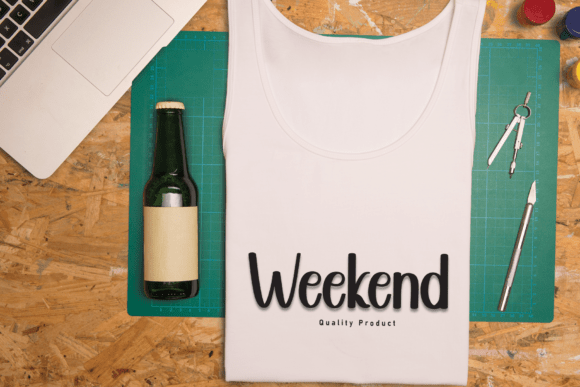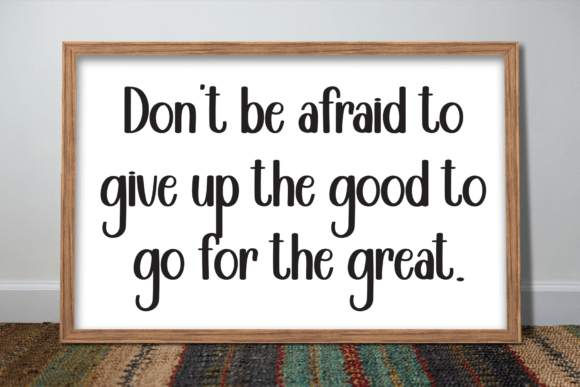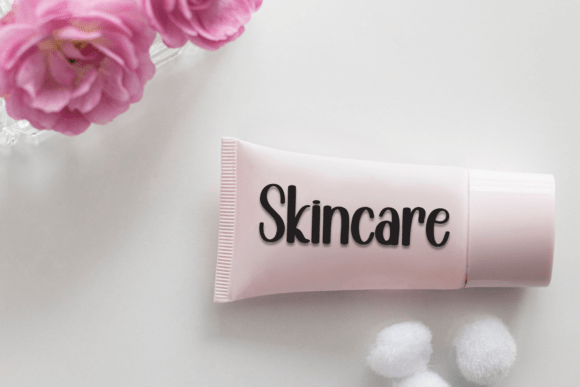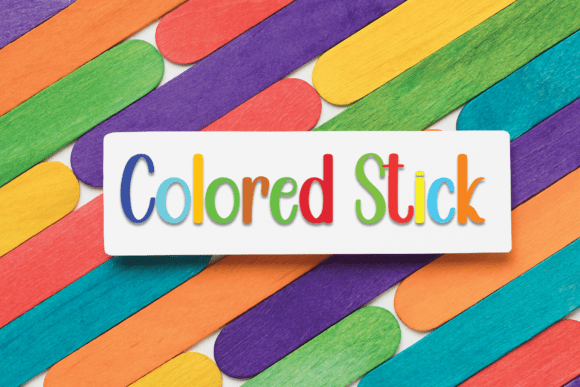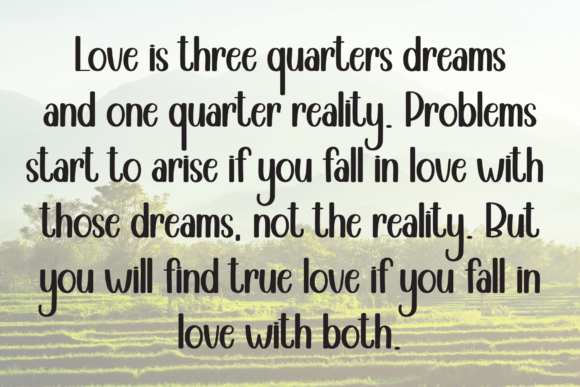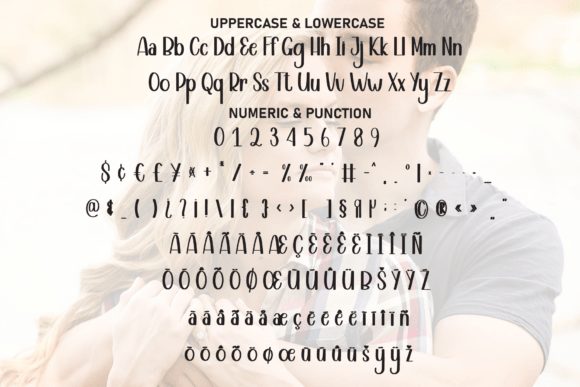
Meet the Boyfriend Font: A Love Letter to Designers
Who hasn’t scribbled a heartfelt note to their partner, or spent hours agonizing over the perfect wedding invitation? For designers, the creative process is often a labor of love, and the right font can make all the difference. That’s where the Boyfriend Font comes in – a charming handwritten display font that’s sure to capture the hearts of your audience.
Created with a symphony of friendly cursive strokes, this delightful font is perfect for adding a playful touch to your designs. Whether you’re crafting romantic wedding invitations, heartfelt cards, or just want to add a dash of fun to your next project, the Boyfriend Font is an excellent choice. Its warmth and sweetness make it a valuable addition to any designer’s toolkit, and we can’t wait to see what you create with it.
Boyfriend Font Key Features
- Font Family: Boyfriend is a sans-serif font family designed by Dalton Maag, a renowned type foundry.
- Font Size: Boyfriend is available in multiple weights, ranging from Thin (100) to Extra Bold (800), offering flexibility for various design needs.
- Unique Characteristics: Boyfriend’s design features a clean and modern aesthetic, with a subtle rounded edge to the letterforms, giving it a friendly and approachable feel.
Designer Review: Boyfriend Font
At first glance, the Boyfriend Font seems like a refreshing take on the typical sans-serif fonts. The rounded edges and relaxed feel give it a friendly, approachable vibe. ✨ I can see this font working well for designs that need a casual, conversational tone, like social media posts or product descriptions.
However, the font’s lack of consistency in weight and style may be a turn-off for some designers. The bold and regular weights don’t quite match, and the italic styles can look a bit awkward. ⚠️ This may require some extra effort to adjust and fine-tune the font’s usage in a design.
Here are some specific pros and cons:
- ✨ Friendly, approachable feel that’s great for casual designs
- ⚠️ Inconsistent weight and style across different font weights
- ⚠️ Italic styles can look a bit awkward
- ✨ Can be a good choice for social media posts or product descriptions
Overall, the Boyfriend Font is a decent option for designers who want a casual, friendly feel. While it has its limitations, it’s still a viable choice for certain types of designs. With some careful consideration and adjustment, it can be a valuable addition to a designer’s toolkit.
Getting the Most Out of Boyfriend Font
To get the most out of the Boyfriend Font, use it in creative and playful ways, such as in quotes, headings, or titles. Experiment with different font sizes and styles to add visual interest to your design. You can also pair the Boyfriend Font with other fonts to create a unique and eye-catching combination.
The Boyfriend Font is commonly used in social media graphics, blog posts, and marketing materials. It’s also a popular choice for creating playful and whimsical designs, such as wedding invitations, party invitations, and gift tags.